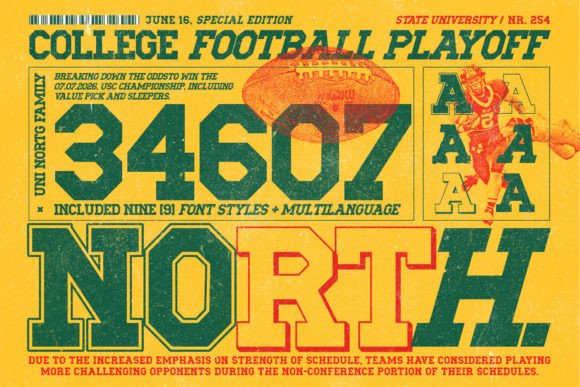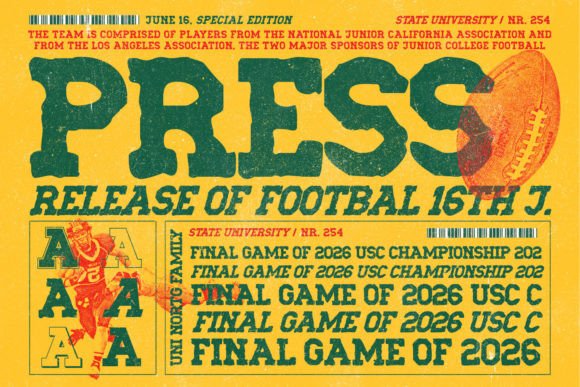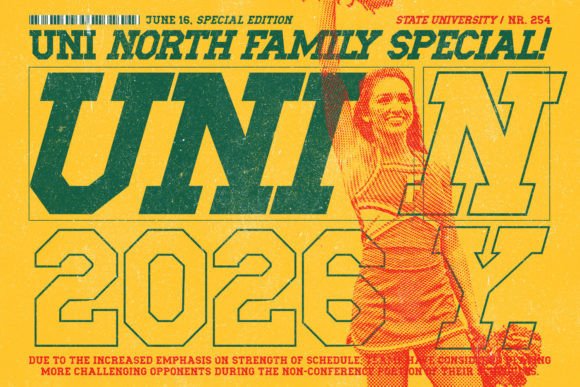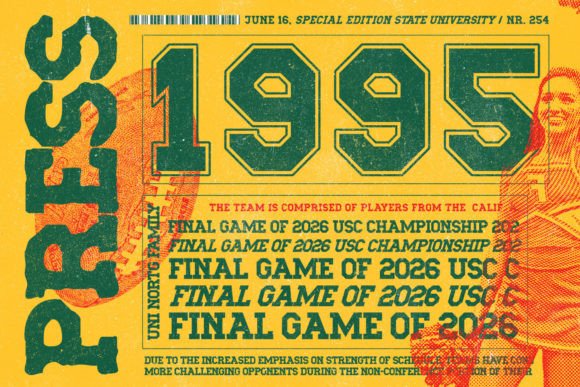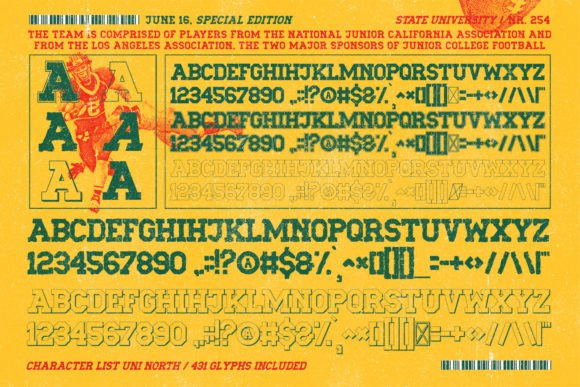
Uni North
UNI North: A Handcrafted Vintage Slab Serif Font
UNI North is a handcrafted vintage slab serif font inspired by university sports, retro posters, magazines, postcards, and ads from the 70’s to the ’90s. Furthermore, this versatile typeface comes in 9 different styles, ranging from Regular to Italic and College variations. Best of all, it’s PUA encoded, so you can easily access all glyphs and swashes.
Key Features of UNI North
• Handcrafted Design: Offers an authentic, personal touch.
• Multiple Styles: Includes 9 different variations for versatility.
• PUA Encoded: Provides easy access to all glyphs and swashes.
• Vintage Appeal: Captures the spirit of retro university sports and media.
Best Uses for UNI North
Thanks to its vintage style, UNI North works especially well for:
When using UNI North in your designs, keep these tips in mind:
• Try different styles to find the perfect match for your project.
• Use the College variation for authentic university-themed designs.
• Experiment with glyphs and swashes to add extra flair.
• Mix styles to create eye-catching vintage layouts.
To sum up, UNI North is an excellent choice for designers seeking a versatile vintage slab serif font with authentic university sports appeal. Its range of styles and easy access to special characters make it a valuable tool for various retro-inspired projects. Whether you’re creating sports branding, designing posters, or developing nostalgic content, UNI North offers the perfect blend of vintage charm and modern usability.
Moreover, UNI North’s unique design allows it to shine in projects that need a genuine retro feel. For instance, from college sports materials to vintage-style ads, this font can lift your designs with its distinctive style. Also, its PUA encoding ensures you can easily add special touches to make your work stand out.
In conclusion, UNI North truly captures the spirit of vintage university sports and retro design. Its nine different styles give designers plenty of options to create unique looks. Therefore, for those wanting to add authentic vintage charm to their work, UNI North can enhance themed creations with its distinctive style. Ultimately, it’s an ideal choice for designers aiming to make a nostalgic impact across various creative projects.